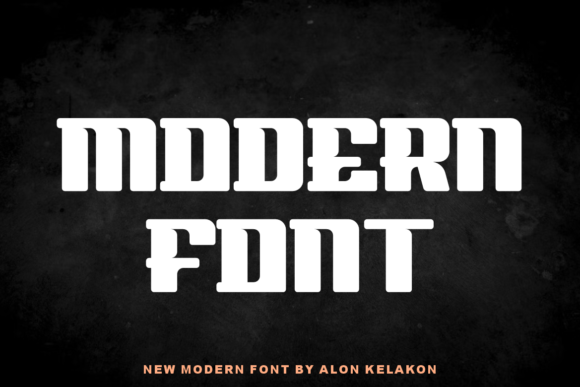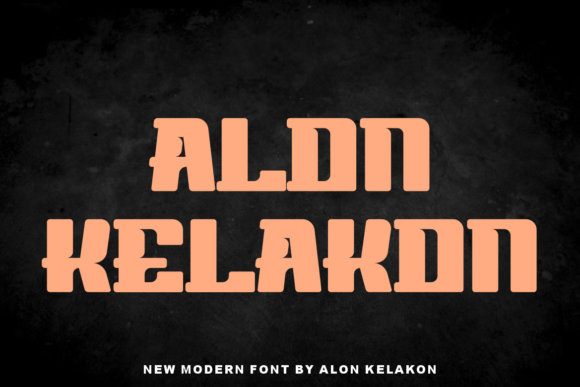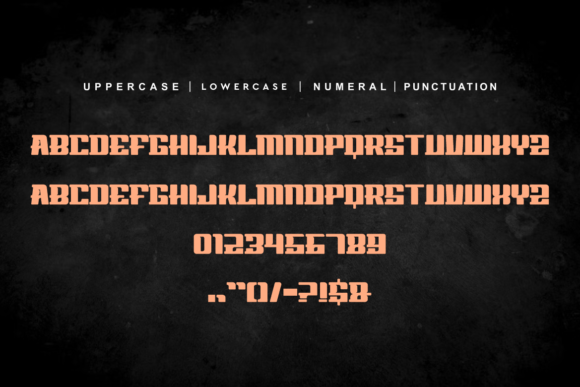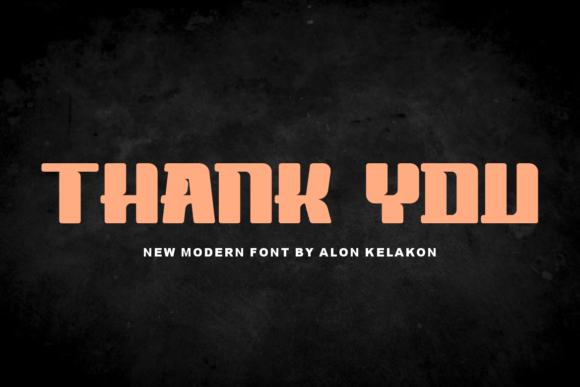
Introduction to Regofar Font
Have you ever been in a rush to finish a creative project, but the perfect font eluded you? That was the case for many designers until the emergence of the Regofar Font. This modern and cool display font is a game-changer for any design enthusiast.
With its sleek and sophisticated design, Regofar Font adds a touch of high quality to any project. Whether you’re working on a logo, poster, or website, this font is sure to elevate your design to the next level. Plus, its transparent background makes it easy to integrate into any design resource, allowing for seamless layering and manipulation.
Key Features of Regofar Font
- High-quality design for creative projects, suitable for a wide range of applications, including print and digital media.
- Transparent background, making it easy to combine with other design elements and backgrounds.
- Unique, hand-drawn style with a mix of geometric and organic elements, making it perfect for adding a touch of personality to designs.
- Designed to be versatile and adaptable, suitable for use in a variety of design projects, from branding and advertising to editorial and publishing.
Honest Review: Regofar Font
I recently came across the Regofar Font, a high-quality design resource that has been making waves in the creative community. The font itself has a unique, modern aesthetic that lends itself well to a variety of creative projects.
- ✨ High-quality vector design that scales seamlessly.
- ✨ Transparent background, making it easy to use in a variety of design contexts.
- ⚠️ Limited character set, which may not be suitable for complex or lengthy text-based projects.
- ⚠️ Not ideal for use in small font sizes, as the design may become distorted.
Overall, I’m impressed with the Regofar Font. While it may not be suitable for every project, it’s a great choice for designers looking for a modern, high-quality font that’s easy to use. With a little creativity, it’s easy to see how the Regofar Font could be a valuable addition to any design arsenal.
Regofar Font is commonly used in graphic design, digital art, and print materials. It’s a great choice for any creative project that requires a high-quality, unique font.